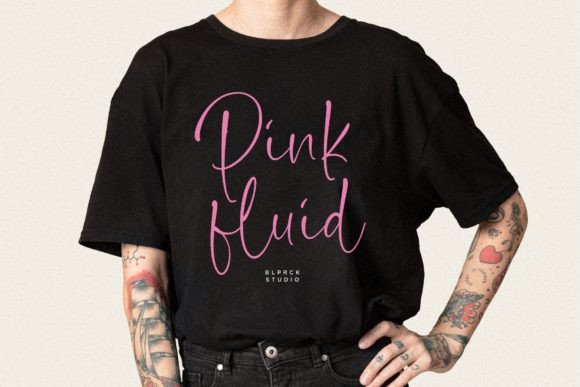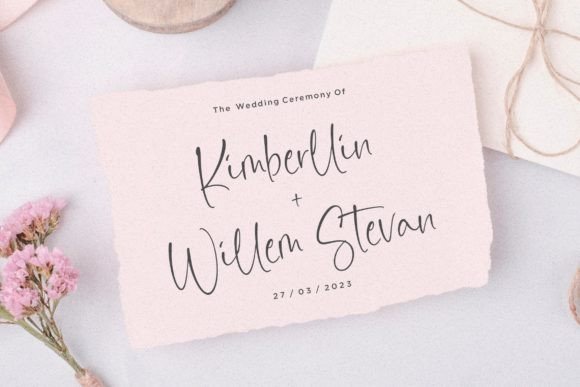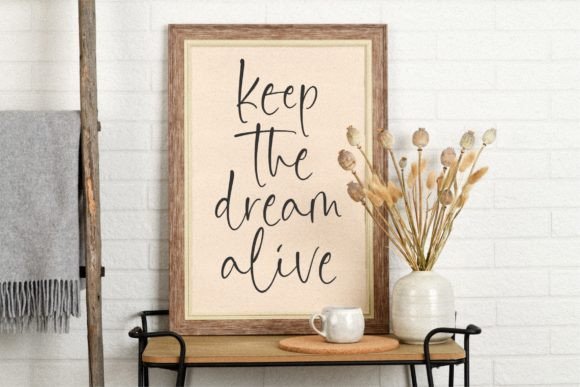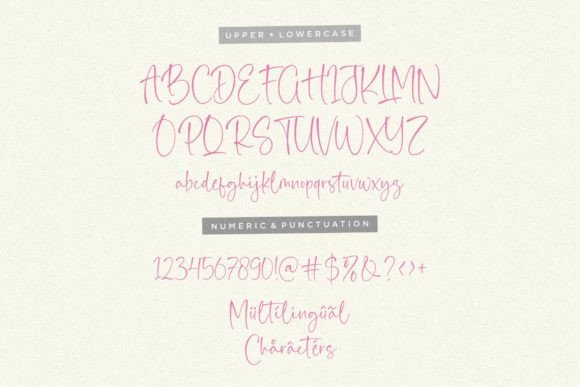
Unlock the Magic of Handwritten Design with Bloombest Font
There’s something special about the first spark of creativity – the moment when an idea blossoms in your mind and you can’t wait to bring it to life. For designers, this moment is often the start of a new project, and it’s a thrill that never gets old. Whether you’re crafting a logo, building a brand, or designing an invitation, the right font can make all the difference. And that’s where Bloombest Font comes in – a beautiful, handwritten Script that adds a personal touch to any design project.
Crafted with care and attention to detail, Bloombest Font is the perfect tool for designers who want to add a unique character to their work. Its modern, handwritten style is versatile and adaptable, making it a valuable asset for any design project. With Bloombest Font, you can create designs that are truly one-of-a-kind – and that’s a magic that every designer wants to unlock.
Bloombest Font Key Features
- Unique Characteristics: Bloombest Font features a unique blend of modern and elegant design elements, with subtle rounded edges and refined lines.
Bloombest Font Review
As a designer, I’ve had the chance to work with various fonts, and Bloombest Font is one of the more interesting ones I’ve come across. Here are my thoughts on what works well and what doesn’t.
- Unique design: Bloombest Font has a distinctive, playful feel that’s perfect for creative projects or branding.
- Customizable: The font comes in various weights, making it easy to adjust the style to fit your design needs.
- Good legibility: Despite its ornate design, Bloombest Font remains easy to read, even at smaller font sizes.
- Limited language support: Bloombest Font may not be suitable for projects requiring extensive language support, as it’s primarily designed for Latin-based scripts.
- Not ideal for body text: While Bloombest Font is great for headings and titles, it’s not the best choice for large blocks of body text due to its ornate nature.
Overall, Bloombest Font is a great addition to any designer’s toolkit, but it’s essential to understand its limitations and use it accordingly. With its unique design and customizable options, it’s perfect for creative projects and branding. However, it may not be the best choice for projects requiring extensive language support or large blocks of body text.
Tips for Getting the Most Out of Bloombest Font
For optimal results, pair the Bloombest Font with bold or italic versions for emphasis. Use it in headings or titles for a clean and modern look. Experiment with font sizes and colors to create visual interest.
The Bloombest Font is ideal for:
- Business cards and resumes
- Infographics and presentations
- Web design and digital marketing